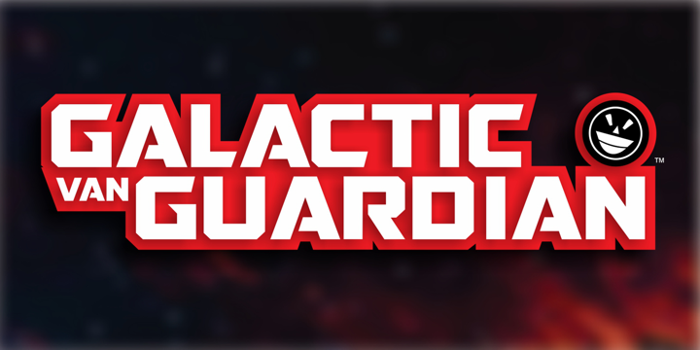
GALACTIC VANGUARDIAN Font
GALACTIC VANGUARDIAN NCV
The celluloid has been minted -- digitally of course -- flora and fauna are speaking and even walking. The universe is a wide-open space, a collection of mysterious galaxies and celestial things capable of destroying entire worlds. Enter the latest Fontry offering to add its weight to an ongoing typographical battle that will span the stars, GALACTIC VANGUARDIAN NCV (non-commercial version).